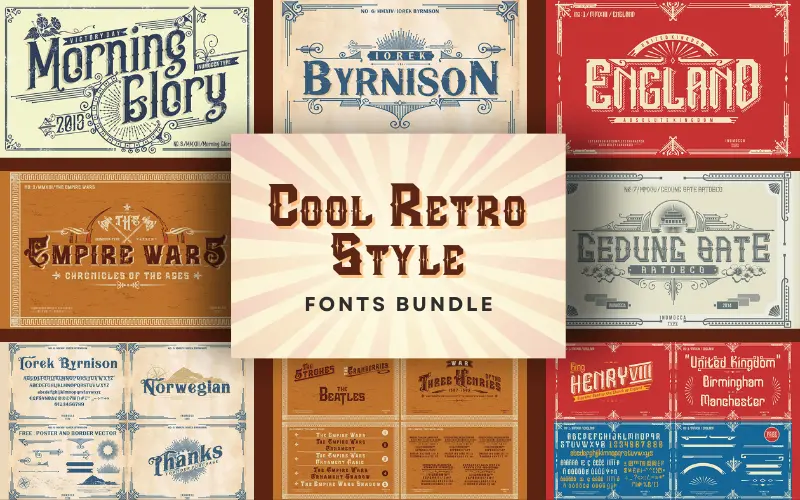
Add a classic retro touch to your designs using – Cool Retro Style Fonts BundleThe Cool Retro Style Fonts Bundle is a collection of 5 amazing retro typefaces spread across 13 fonts.These retro font typefaces are available in OTF and TTF files, which make them compatible with various design software.These retro fonts support uppercase, lowercase, numerical, Symbolic, and punctuation characters. Moreover, they support multiple languages, enabling them to reach a global audience.This retro collection can easily evoke emotions in a design work. Whether it’s a logo, brand label, web design, digital print project, or anything else, this retro fonts bundle can perfectly combine the classic vintage look with the latest modern elegance.And do you know the best part? This font bundle has an Extended commercial license, so you can use it for unlimited personal and commercial projects.Don’t wait anymore! Grab this amazing retro fonts bundle and start creating unique vintage designs.Specifications Of These Cool Retro Fonts 5 Retro Typefaces 13 Retro FontsOTF & TTF FilesSupports Multiple LanguagesSupports Uppercase, Lowercase, Numeric, Symbols and Punctuation CharactersBonus: Poster And Border Vector (AI, EPS, CDR files ) for al fontsCompatible with all popular design softwareExtended Commercial LicenseThe Cool Retro Typefaces Included In This Fonts Bundle:Morning Glory FontEngland FontEngland fontIorek Byrnison FontIorek Byrnison OrnateArtdeco FontGedung Sate Artdeco Shadow Basic StylicGedung Sate Artdeco Shadow BasicGedung sate Artdeco Slice ShadowGedung sate ArtdecoThe Empire Wars FontThe Empire Wars ShadowThe Empire Wars Ornament ShadowThe Empire Wars Ornament Basic SolidThe Languages These Cool Retro Fonts support are:AfrikaansAlbanianAsuBasqueBembaBenaBretonCatalanChigaCornishDanishDutchEnglishEstonianFaroeseFilipinoFinnishFrenchFriulianGalicianGermanGusiiIndonesianIrishItalianKabuverdianuKalenjinKinyarwandaLuoPreviews of These Cool Retro Fonts